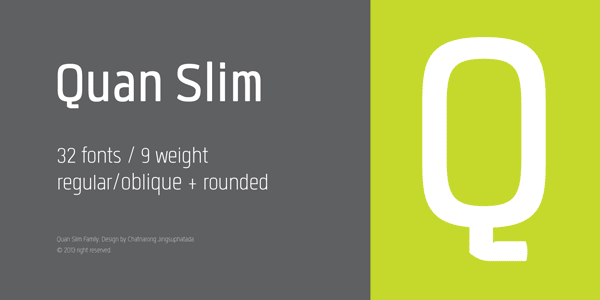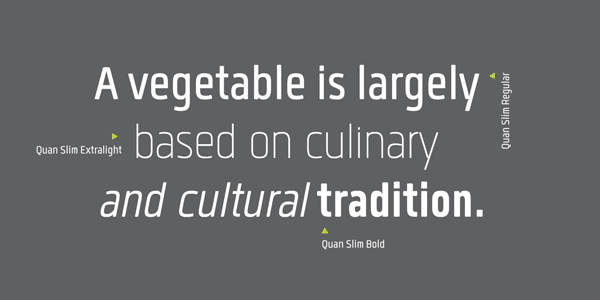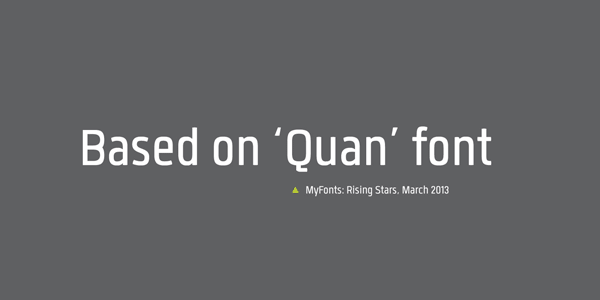
Quan Slim Type Family.
The typeface of Quan Slim is based on the successful Quan font family by font foundry Typesketchbook. Font designer Chatnarong Jingsuphatada created Quan Slim as condense version to Quan. Both type families consist of eight weights plus obliques and additional rounded versions. Quan Slim’s typeface has a clean and modern sans serif appearance. This modern geometric font is very legible and can be used for headlines as well as small and long text.